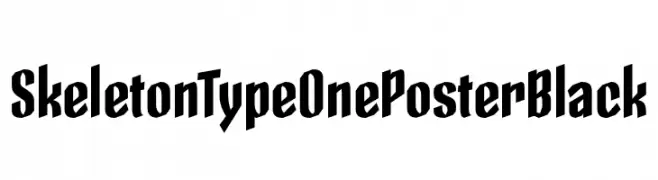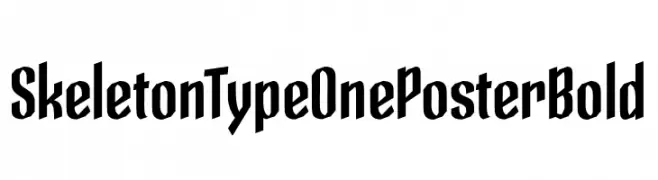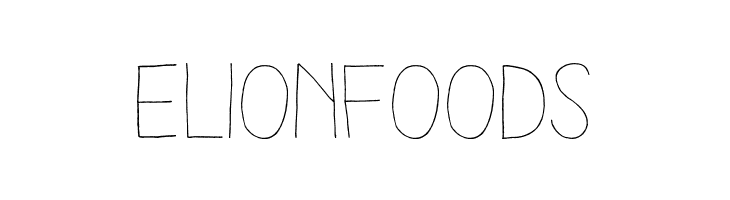
A thin, sketch-like font with a hand-drawn, textured appearance.
A rugged, textured slab serif font with a hand-crafted appearance.
A bold, angular font with a modern, edgy style.
A bold, angular font with a modern and dynamic style.
A bold, angular font with a dynamic and powerful presence.
A tall, ultra-condensed, hand-drawn font with a light and airy style.
Ultra-condensed, light, and italic with a modern, elegant style.
A tall, ultra-condensed, and light font with thin strokes and a modern aesthetic.
A thin, hand-drawn font with a whimsical and organic style.
A casual, handwritten font with a slight slant and consistent stroke width.